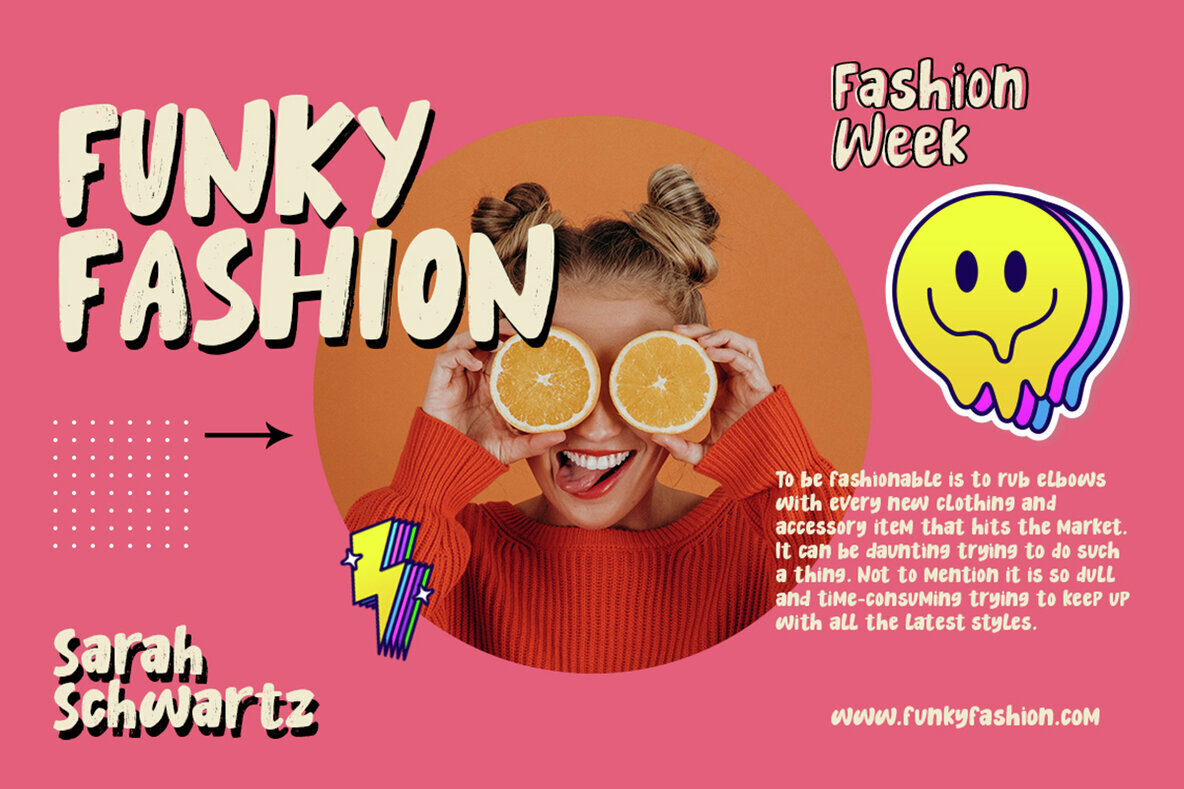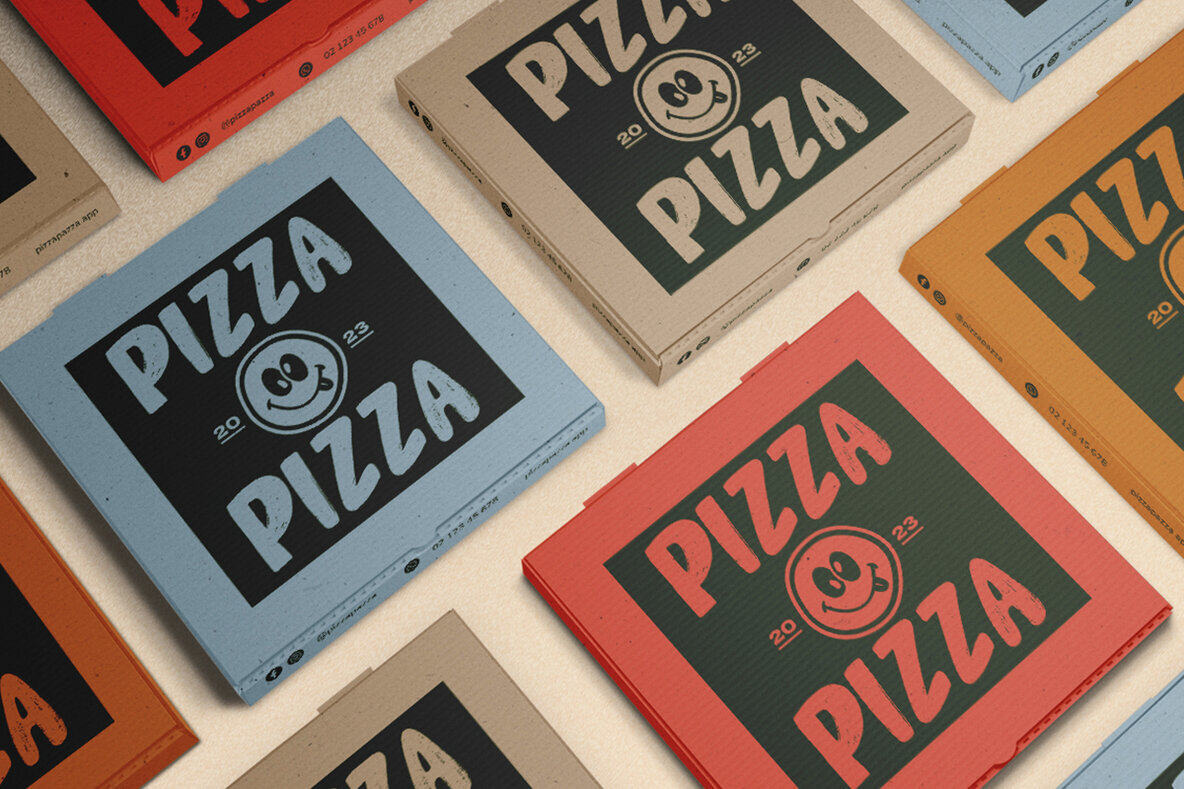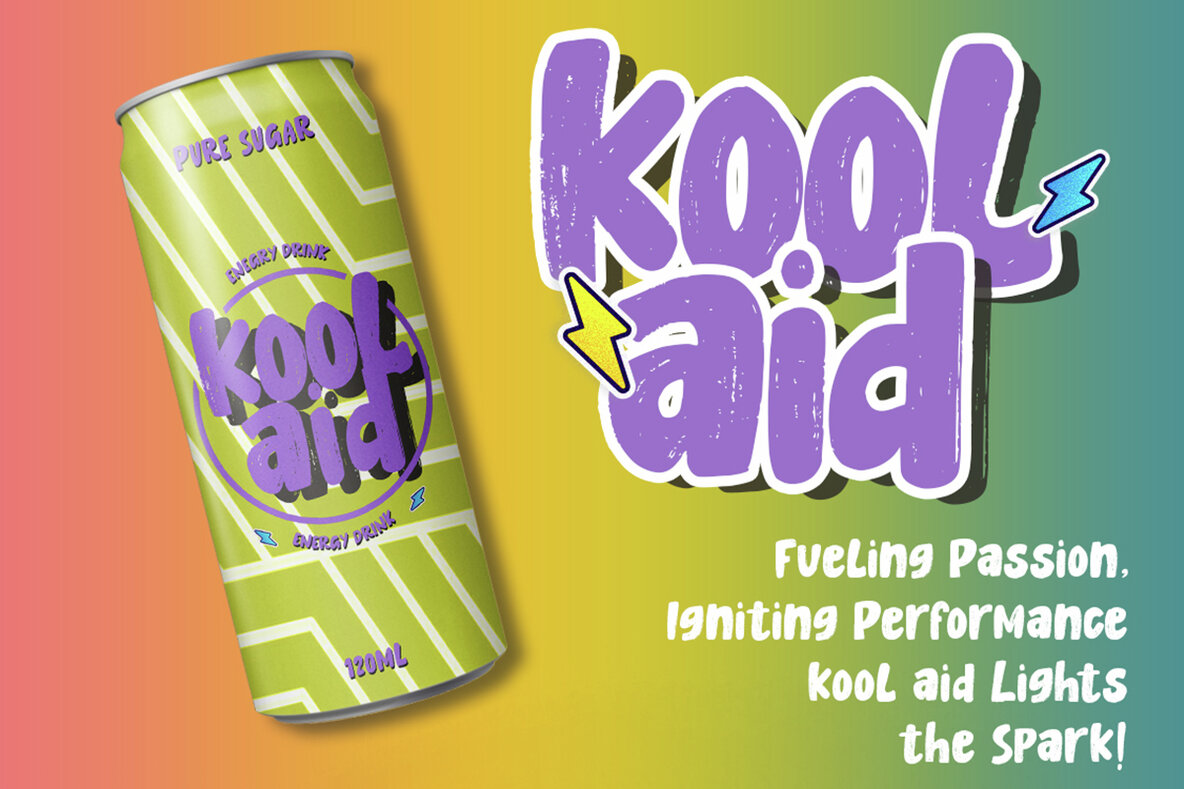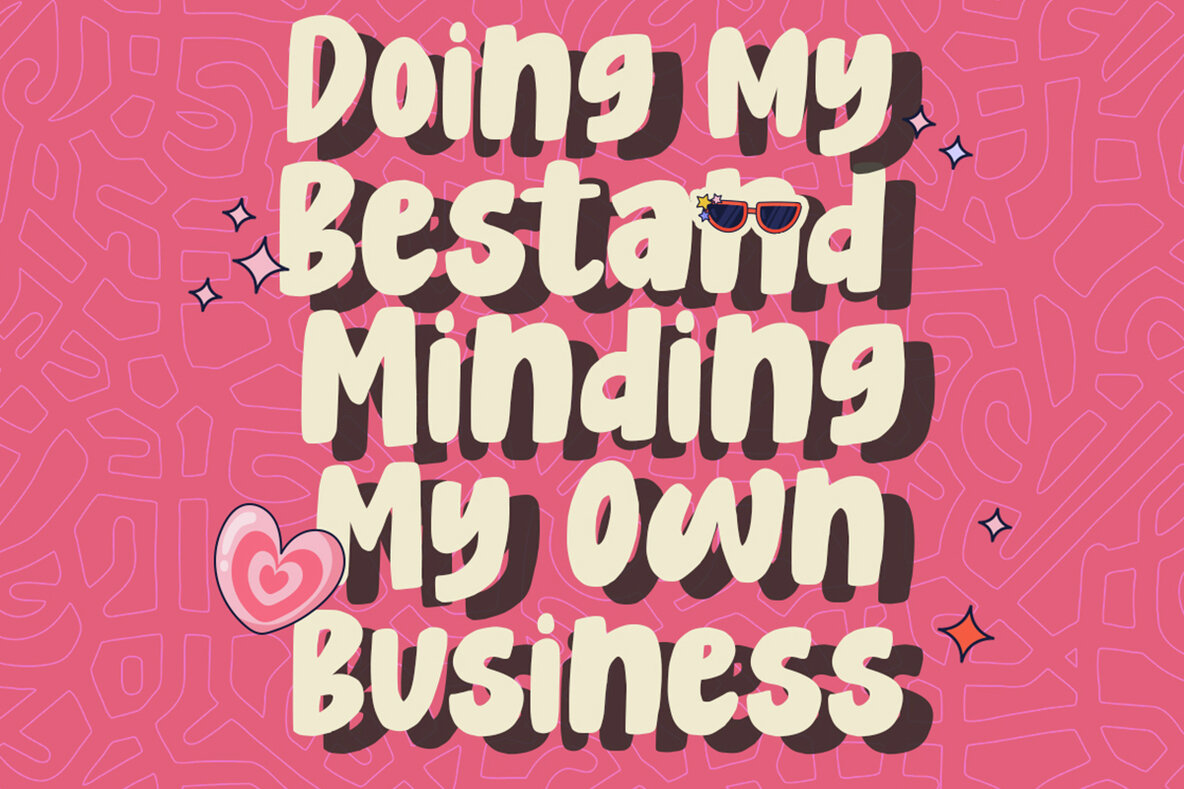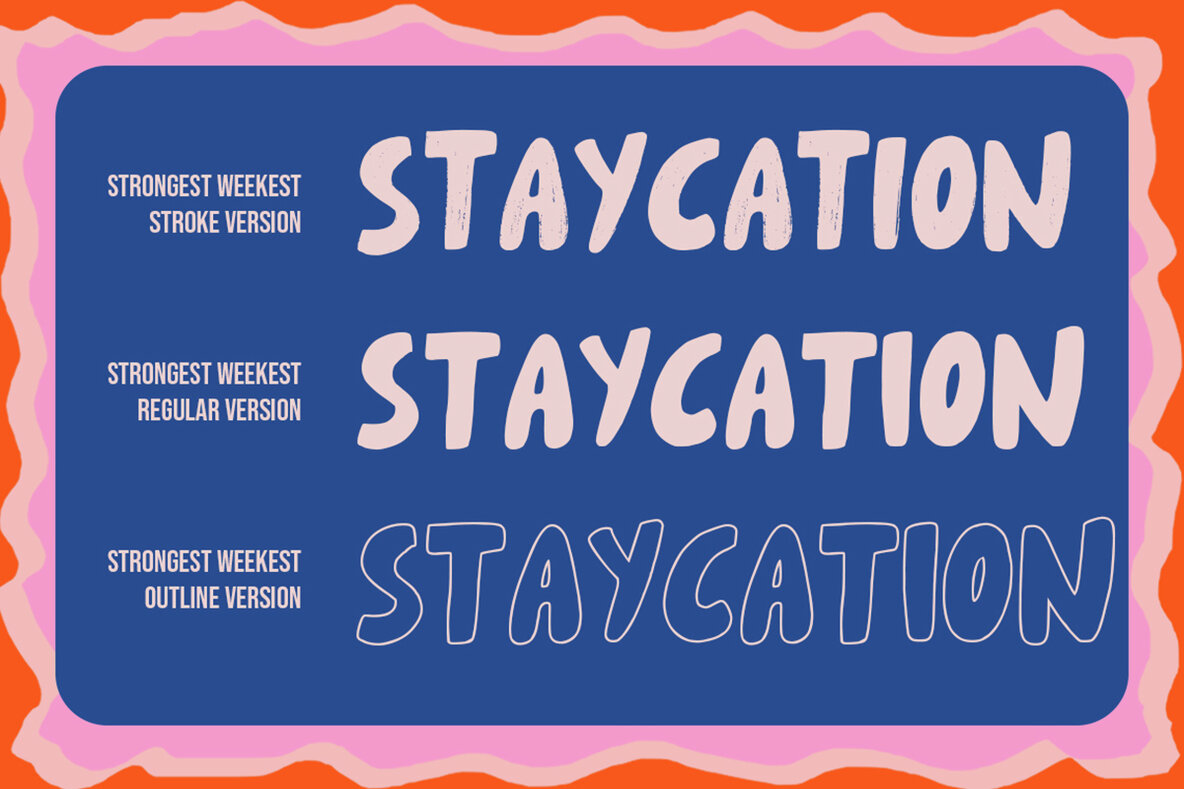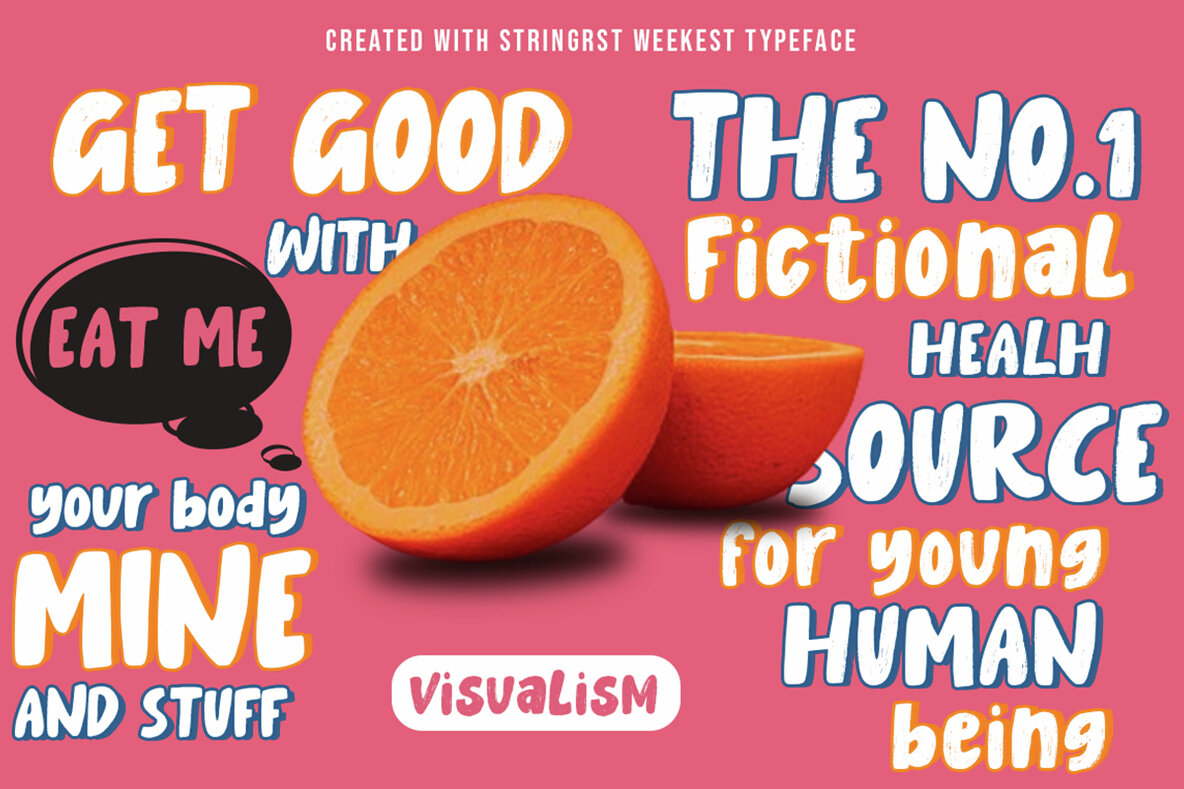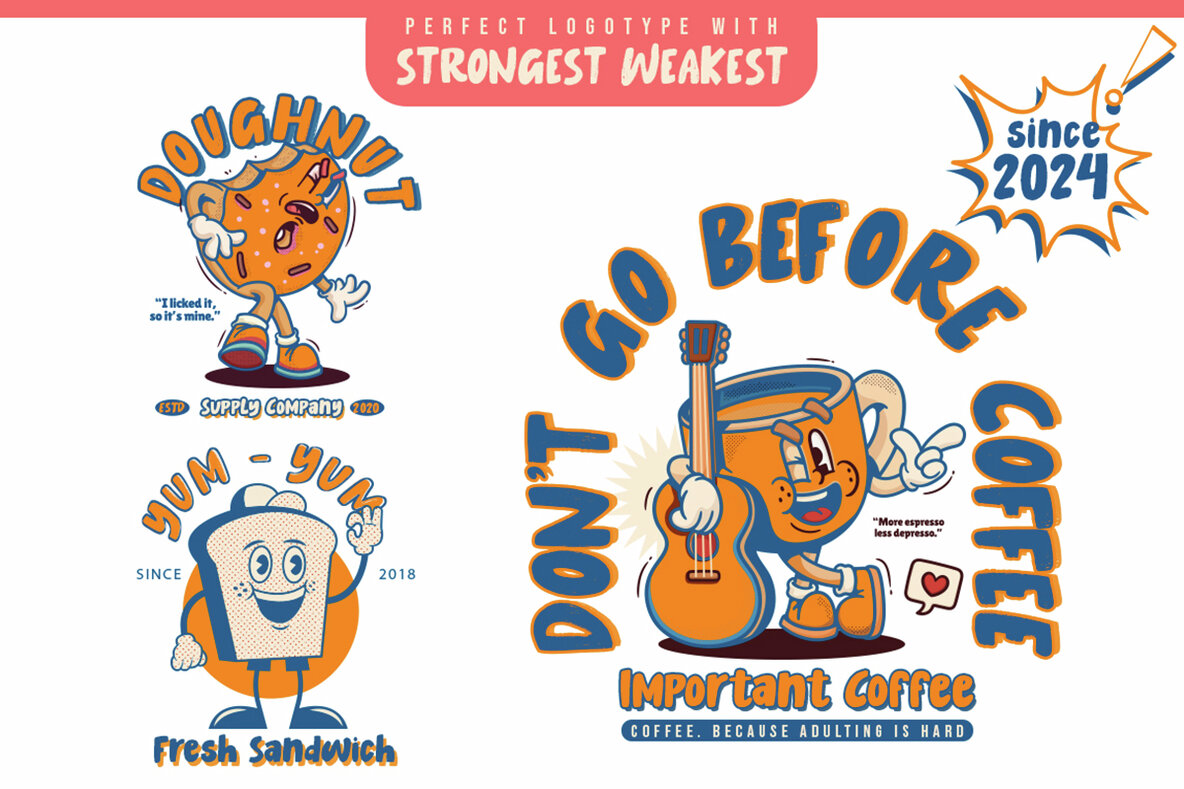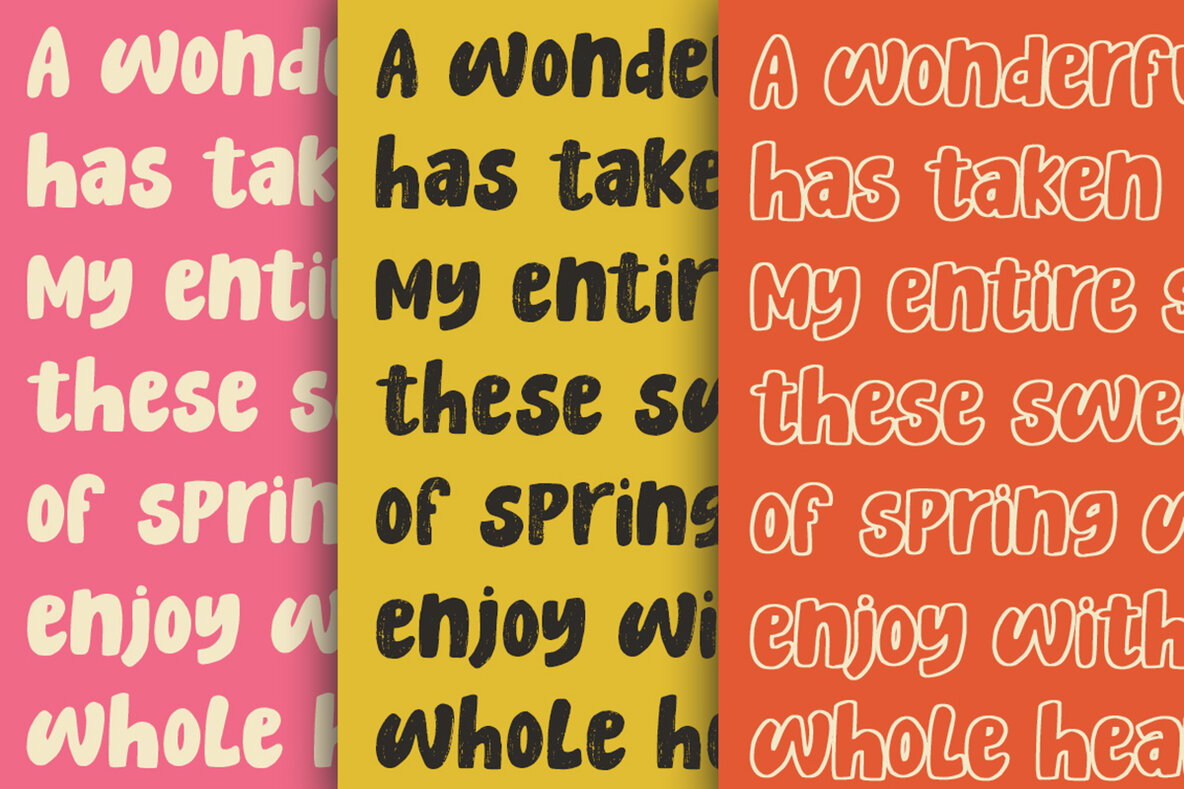
Strongest Weakest Font
"Strongest Weakest" is a versatile hand brush font crafted using brushes and ink, giving it a dynamic, artistic flair. It's perfect for designs that require a bold and expressive touch, such as watercolor themes or handwritten styles. This typeface is particularly suitable for a wide range of creative projects, including blog titles, posters, and wedding elements. It can also be used on t-shirts, clothing lines, book covers, business cards, greeting cards, and various branding or merchandise materials.
Offering a comprehensive character set, the font includes uppercase and lowercase letters, ligatures, punctuation, and numbers. Additionally, it supports multiple languages, ensuring broad usability for designers across different regions. Whether applied to personal or commercial projects, this typeface adds a distinctive, handmade aesthetic, infusing any design with a sense of creativity and individuality.